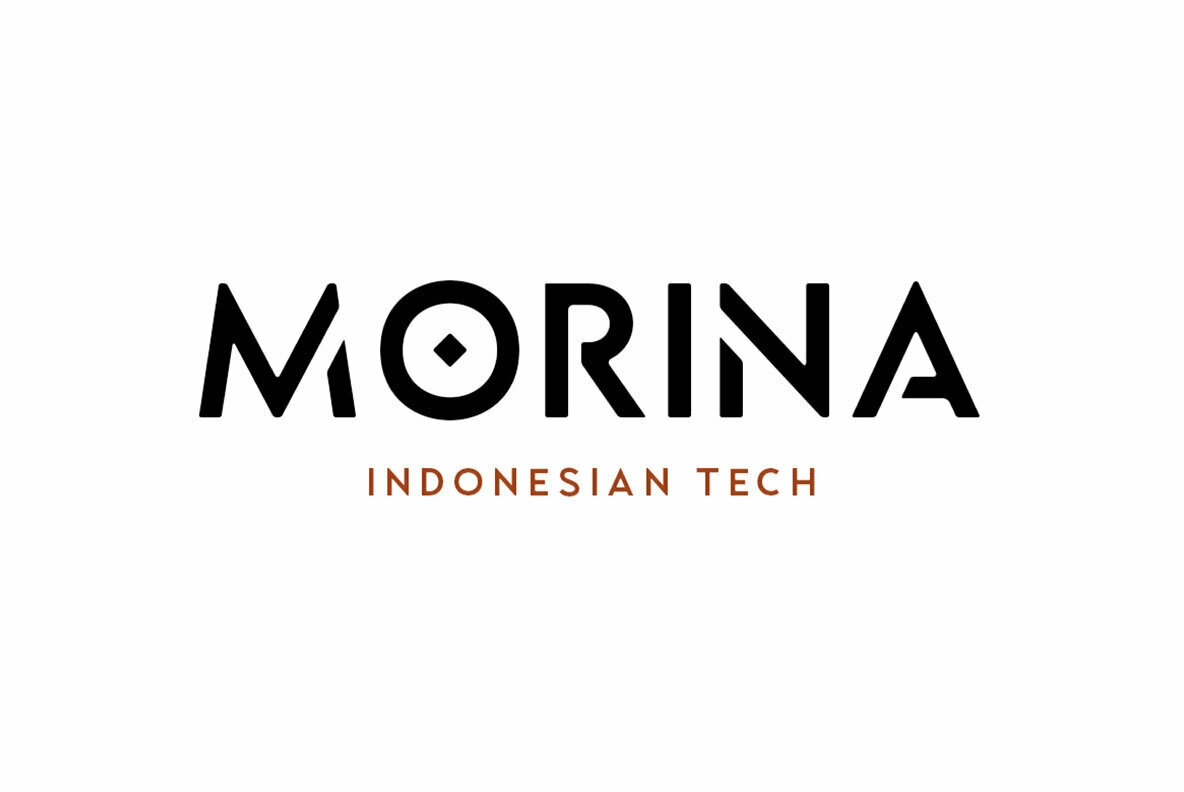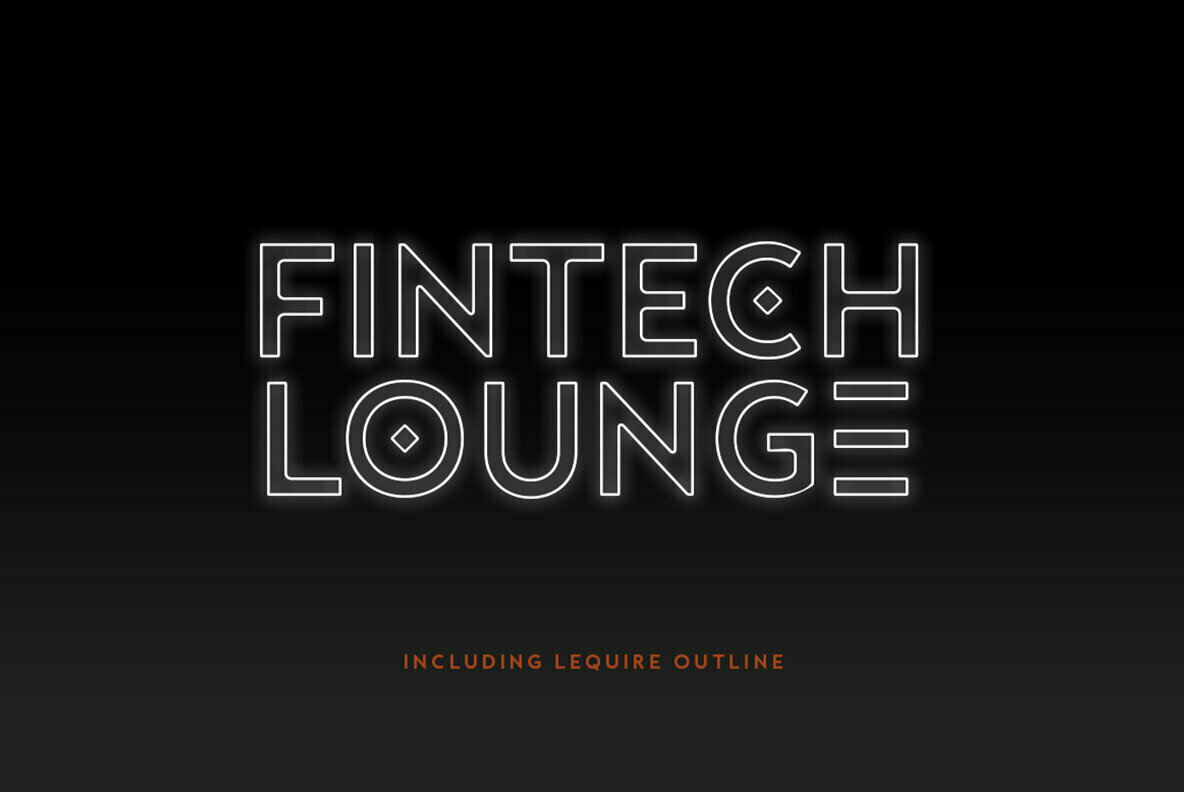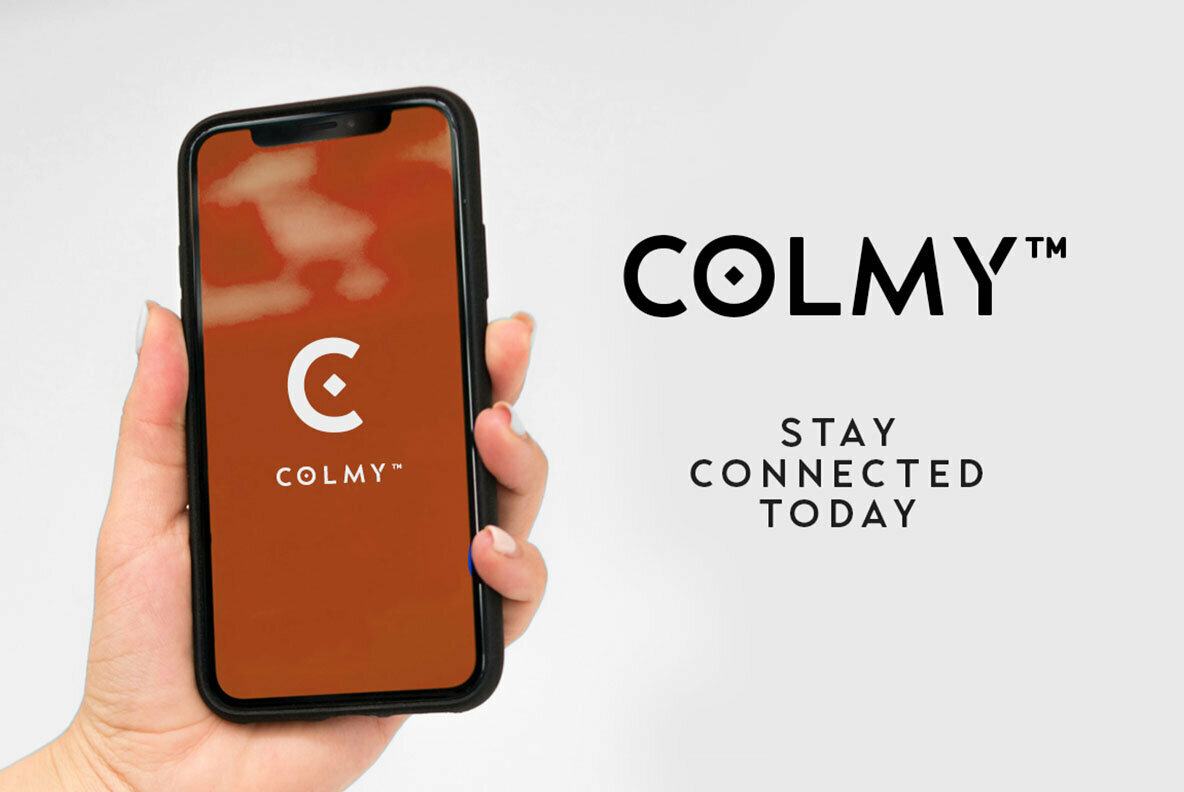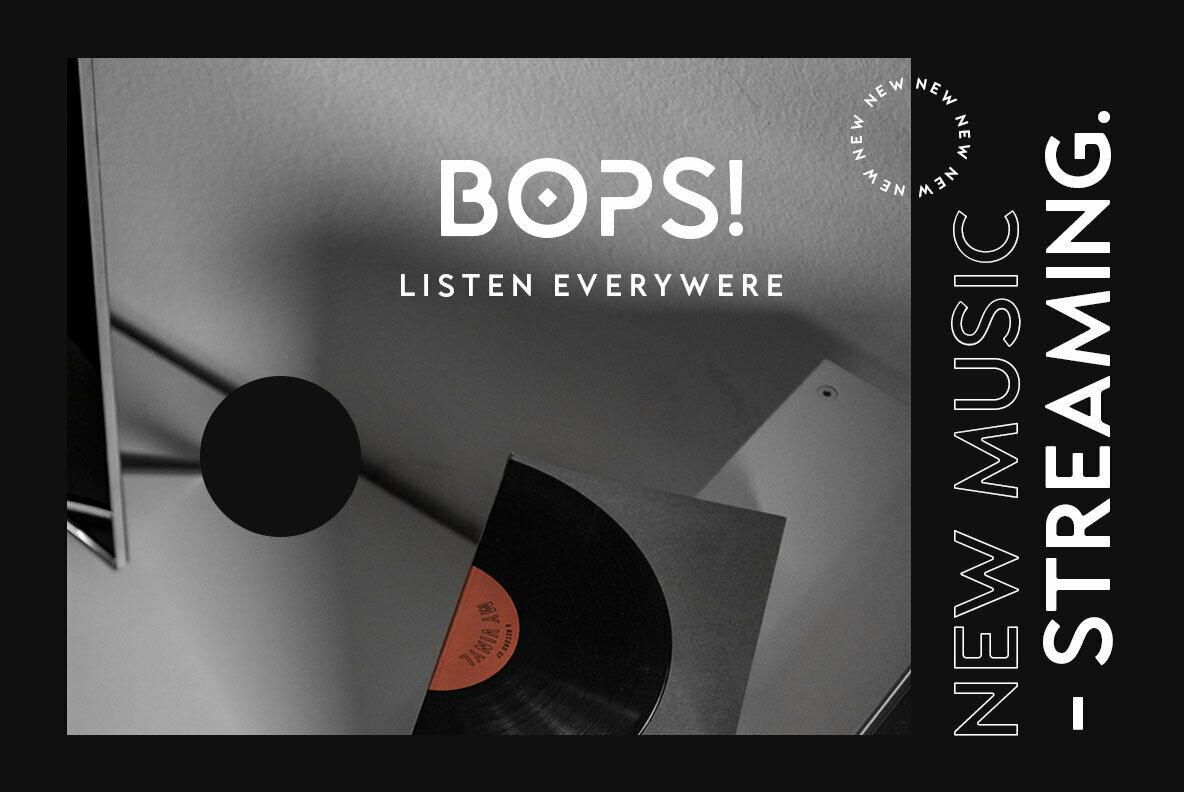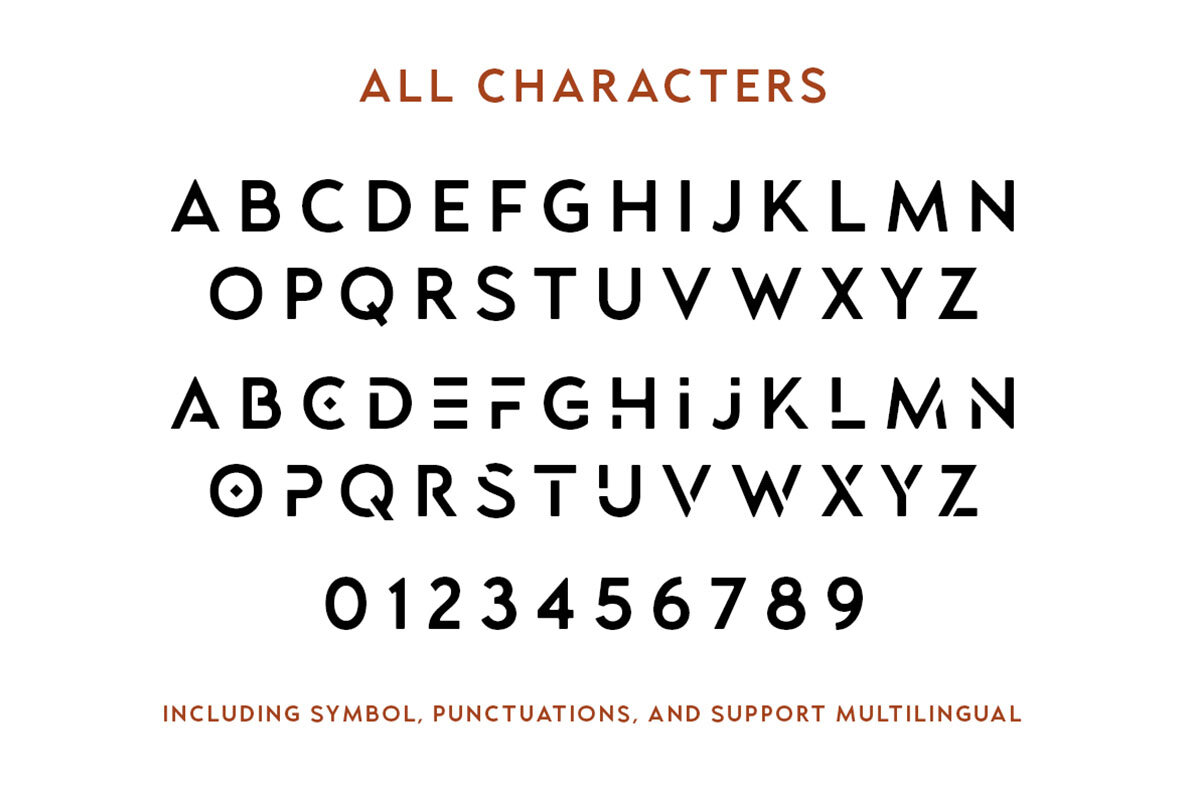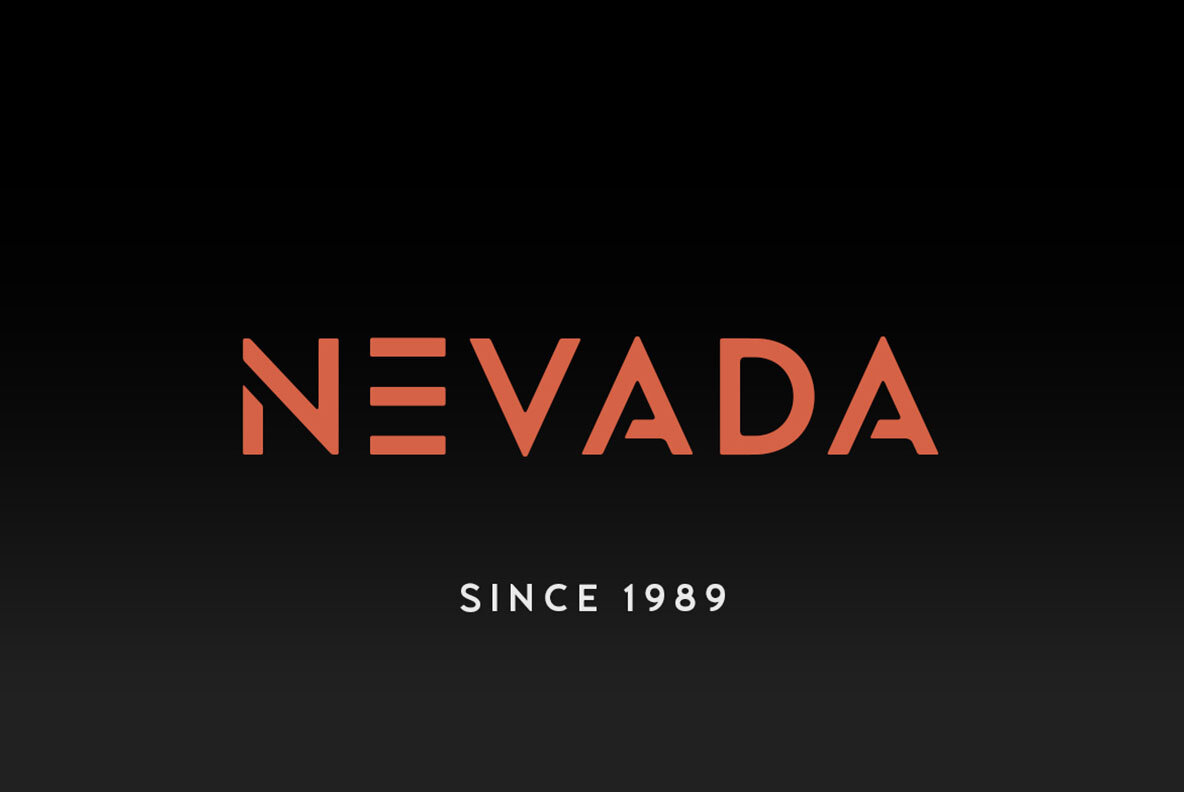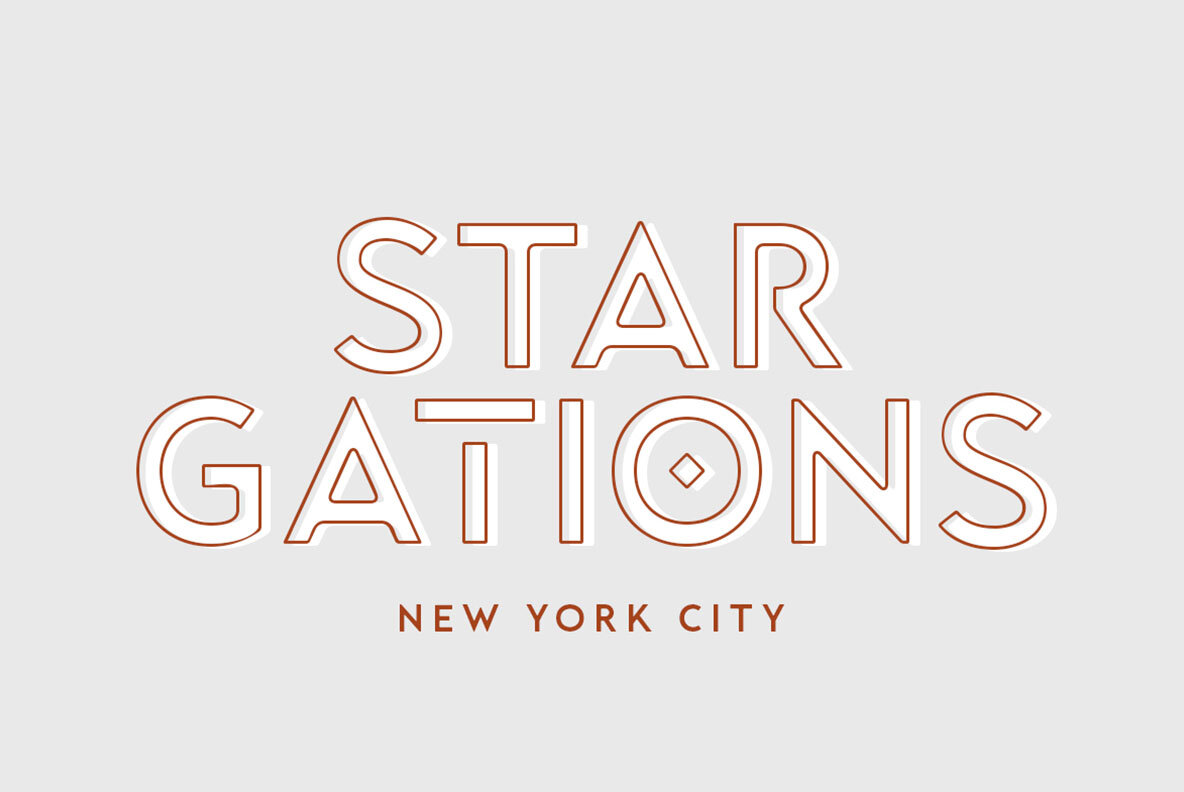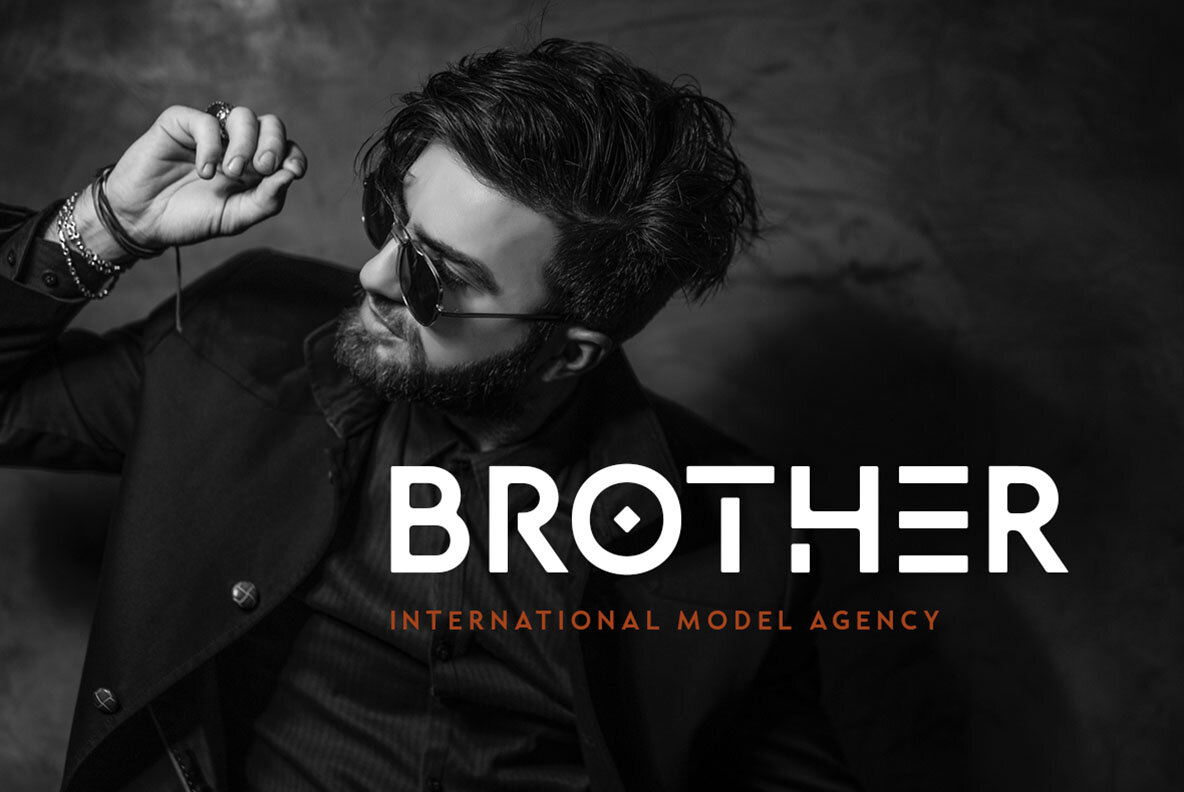
Lequire Font
Elevate your design with Lequire, a sans-based typeface that combines contemporary aesthetics with a unique twist. This font's distinctive lowercase characters offer a hi-tech and modern appeal, perfect for any design purpose.Lequire: A Modern Lo̥go Typeface
Design Features